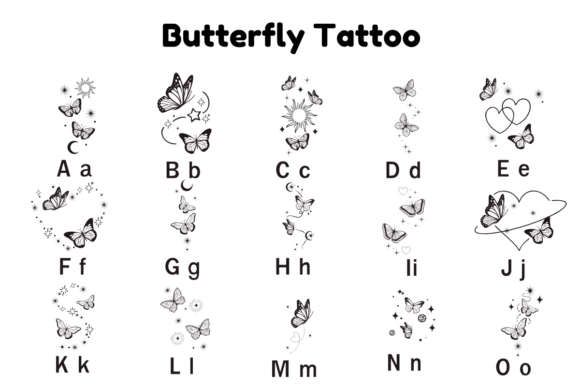
Butterfly Tattoo Font: A Whimsical and Natural Design Element
The world of tattoos has evolved significantly over the years, with various designs and styles gaining popularity. One such design that has captured the hearts of many is the butterfly tattoo. A symbol of transformation, beauty, and freedom, butterfly tattoos have become a favorite among tattoo enthusiasts. For those looking to add a creative touch to their tattoo design or graphic project, a butterfly tattoo font can be a perfect choice. In this article, we’ll explore the world of butterfly tattoo fonts, their characteristics, and how they can be used to enhance your creative projects.
What is a Butterfly Tattoo Font?
A butterfly tattoo font, also known as a dingbat font, is a type of font that features simple, decorative designs of butterflies. Each character in the font represents a different butterfly design, making it perfect for adding a whimsical and natural touch to any text or artwork. These fonts are designed to be used in a variety of creative projects, including tattoos, graphic designs, and digital art.
Characteristics of a Butterfly Tattoo Font
A good butterfly tattoo font should have the following characteristics:
- Unique and creative designs: A butterfly tattoo font should feature unique and creative designs that are both visually appealing and meaningful.
- Variety of designs: A good font should have a variety of butterfly designs, each representing a different character or symbol.
- Scalability: The font should be scalable, allowing it to be used in a variety of projects, from small tattoos to large graphic designs.
Uses of a Butterfly Tattoo Font
A butterfly tattoo font can be used in a variety of creative projects, including:
- Tattoos: A butterfly tattoo font can be used to create unique and personalized tattoo designs.
- Graphic designs: The font can be used in graphic designs, such as logos, brochures, and posters.
- Digital art: The font can be used in digital art, such as illustrations and paintings.
- Wedding and event planning: The font can be used to create beautiful and unique wedding and event decorations.
Example Use Case: Creating a Butterfly Tattoo Design
Let’s say you’re looking to create a unique tattoo design featuring a butterfly. You can use a butterfly tattoo font to create a custom design that incorporates your favorite butterfly species. Simply choose the font, select the butterfly design you like, and customize it to fit your needs.
Benefits of Using a Butterfly Tattoo Font
Using a butterfly tattoo font can have several benefits, including:
- Unique and creative designs: A butterfly tattoo font can help you create unique and creative designs that stand out from the crowd.
- Time-saving: The font can save you time and effort, as you don’t have to design each butterfly from scratch.
- Ease of use: The font is easy to use, making it accessible to users of all skill levels.
- Cost-effective: Using a butterfly tattoo font can be cost-effective, as you can use it in multiple projects without having to pay for individual designs.
How to Choose the Right Butterfly Tattoo Font
Choosing the right butterfly tattoo font can be overwhelming, especially with so many options available. Here are some tips to help you choose the right font:
- Look for unique and creative designs: Choose a font that features unique and creative butterfly designs.
- Check the variety of designs: Make sure the font has a variety of butterfly designs to choose from.
| Font Name | Butterfly Tattoo Font |
A butterfly tattoo font can be a great addition to any creative project, adding a touch of whimsy and natural beauty. With its unique and creative designs, scalability, and ease of use, a butterfly tattoo font is perfect for tattoos, graphic designs, digital art, and more. By choosing the right font and following the tips outlined in this article, you can create stunning and unique designs that showcase your creativity and style.